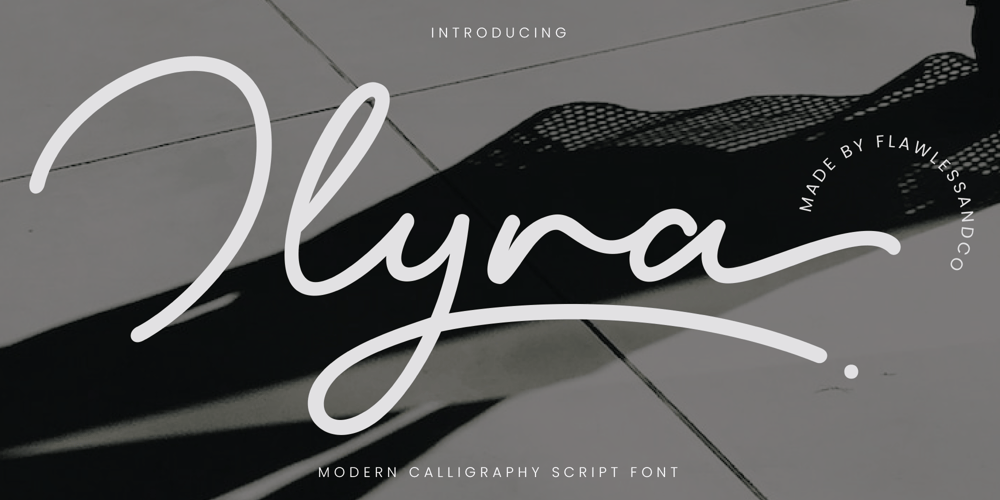
Ilyra
Ilyra font
Ilyra Font Family was designed by Achmad Yani and published by Flawlessandco. Ilyra contains 1 styles and family package options. Introducing “Ilyra” – A Modern Calligraphy Script Font. Step into the world of modern elegance with “Ilyra,” a sophisticated calligraphy script font that seamlessly blends classic charm with contemporary flair.There’s some connected letters and some alternates that suitable for any graphic designs such as branding materials, t-shirt, print, business cards, logo, poster, t-shirt, photography, quotes .etcThis font support for some multilingual. Also contains uppercase A-Z and lowercase a-z, alternate character, numbers 0-9, and some punctuation.If you need help, just write me! Thanks so much for checking out my shop!